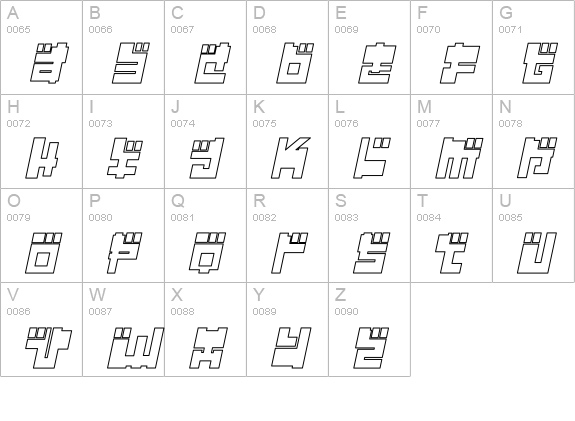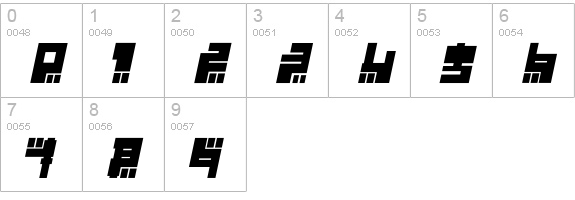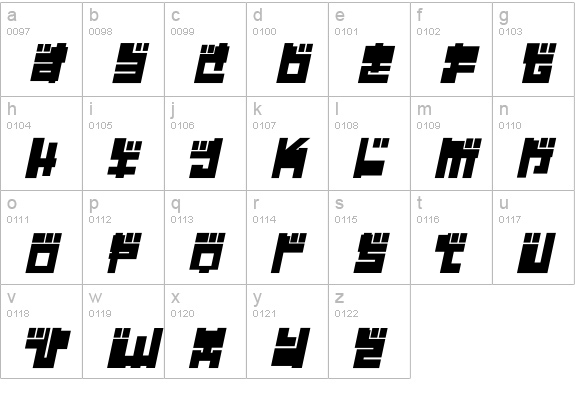
The Year 2000 Replicant font is a sleek and futuristic typeface that captures the essence of the turn of the millennium. Its sharp lines and geometric shapes evoke a sense of cutting-edge technology and innovation. This versatile font is perfect for creating eye-catching designs that demand attention. What sets the Year 2000 Replicant font apart is not only its modern aesthetic but also the fact that it is available for free! Yes, you read that right - this unique font can be freely downloaded at FontsMarket.com, making it accessible to all designers and creatives looking to add a touch of sophistication to their projects. Whether you're working on a branding project, website design, or any other creative endeavor, the Year 2000 Replicant font is sure to elevate your work to the next level. Embrace the future with this dynamic and captivating typeface, and let your designs stand out from the crowd. Download it for free today at FontsMarket.com and unleash your creativity!